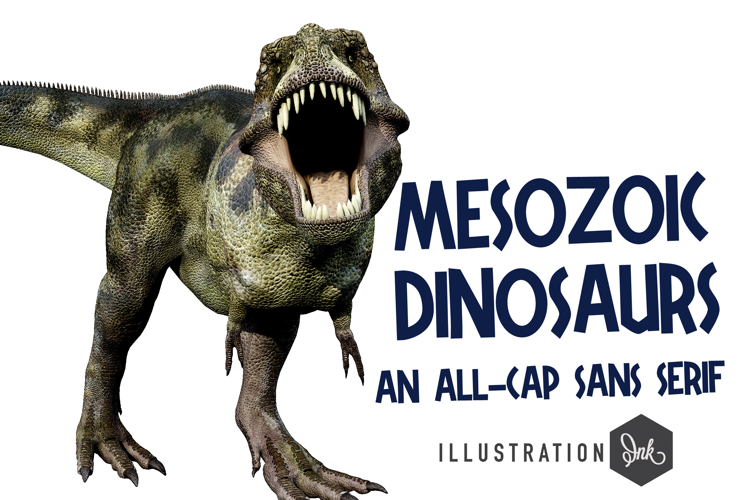
Mesozoic Font Family
This hand-crafted, whimsical sans serif is very crafty looking with a blocky, jungle like feel. Several dinosaur silhouettes are available when you type the glyphs: Trademark, Copy right, Register, and Degree.